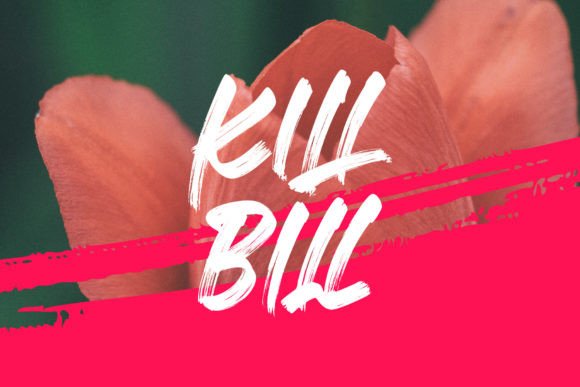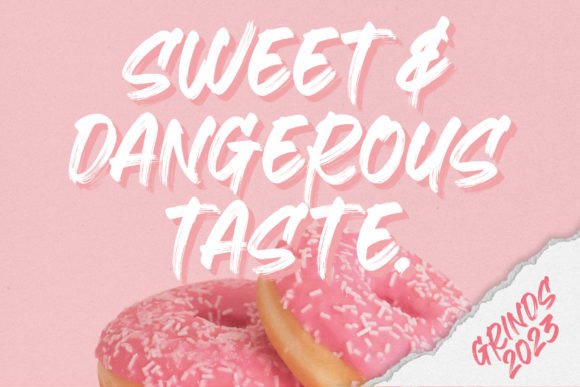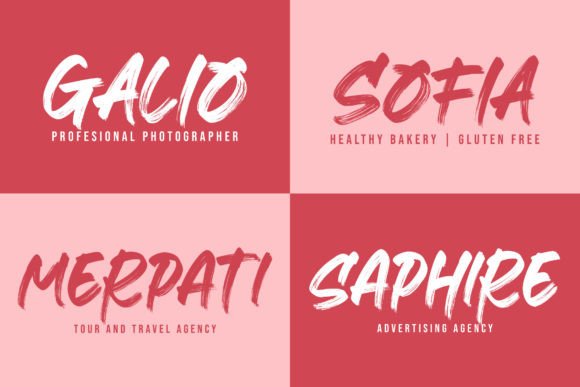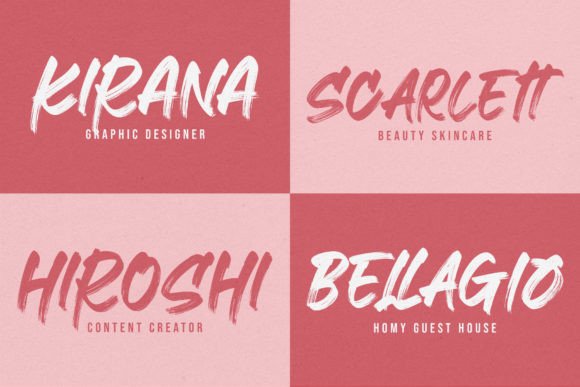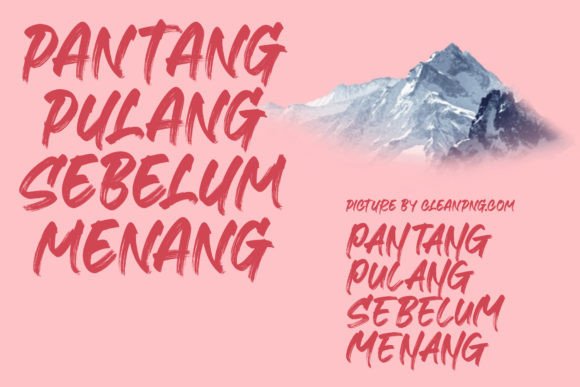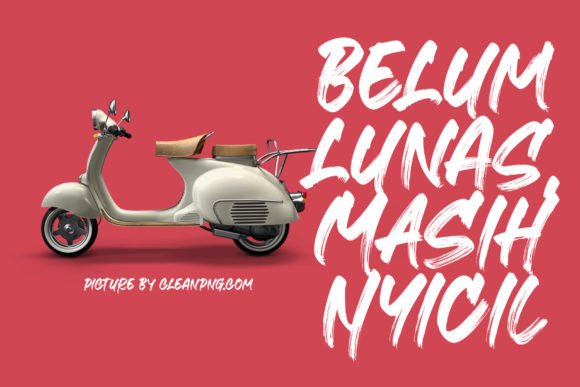
Introducing Grinds Font: The Ultimate Handwritten Display Brush Font
Are you a designer or crafter looking for a unique and stylish font to elevate your creative projects? Look no further than Grinds Font, a stunning handwritten display brush font that’s perfect for a wide range of applications. From branding and logotype to apparel, product packaging, and more, Grinds Font is the ideal choice for anyone seeking a bold and eye-catching look.
What is Grinds Font?
Grinds Font is a carefully crafted handwritten display brush font that’s designed to add a touch of personality and flair to your designs. With its bold, expressive brushstrokes and fluid letterforms, Grinds Font is perfect for creating eye-catching headlines, titles, and logotypes that demand attention.
What Can I Use Grinds Font For?
The versatility of Grinds Font is one of its standout features. This amazing font can be used for a wide range of creative projects, including:
- Branding: Create a lasting impression with a custom logo or brand identity that showcases your unique style and personality.
- Logotype: Develop a distinctive logotype that sets your business or product apart from the competition.
- Apparel: Add a personal touch to your T-shirts, hoodies, and other apparel with Grinds Font’s bold and stylish lettering.
- Product Packaging: Elevate your product packaging with eye-catching labels, tags, and other design elements that showcase Grinds Font’s unique charm.
- Quotes: Create inspiring and motivational quotes that are sure to resonate with your audience.
- Flyers and Posters: Grab attention with bold and colorful flyers and posters that feature Grinds Font’s dynamic lettering.
- Book Covers: Create a stunning book cover that showcases Grinds Font’s elegant and sophisticated style.
- Advertising: Use Grinds Font to create compelling ad copy that drives results and leaves a lasting impression.
Why Choose Grinds Font?
So why should you choose Grinds Font for your next creative project? Here are just a few compelling reasons:
- Unique Style: Grinds Font offers a distinctive and stylish look that’s sure to set your designs apart from the competition.
- High-Quality Design: Grinds Font is meticulously crafted to ensure that every letterform is precise, elegant, and visually appealing.
- Versatility: With its wide range of applications, Grinds Font is an incredibly versatile font that can be used for everything from branding and logotype to apparel and product packaging.
Tips for Using Grinds Font
To get the most out of Grinds Font, here are a few tips to keep in mind:
- Experiment with Colors: Grinds Font looks amazing in a wide range of colors, so don’t be afraid to experiment and find the perfect hue for your design.
- Play with Sizes: Grinds Font is designed to be versatile, so try using it in different sizes to create visual interest and hierarchy.
- Combine with Other Fonts: Grinds Font pairs well with a variety of other fonts, so feel free to experiment with different combinations to find the perfect look for your design.